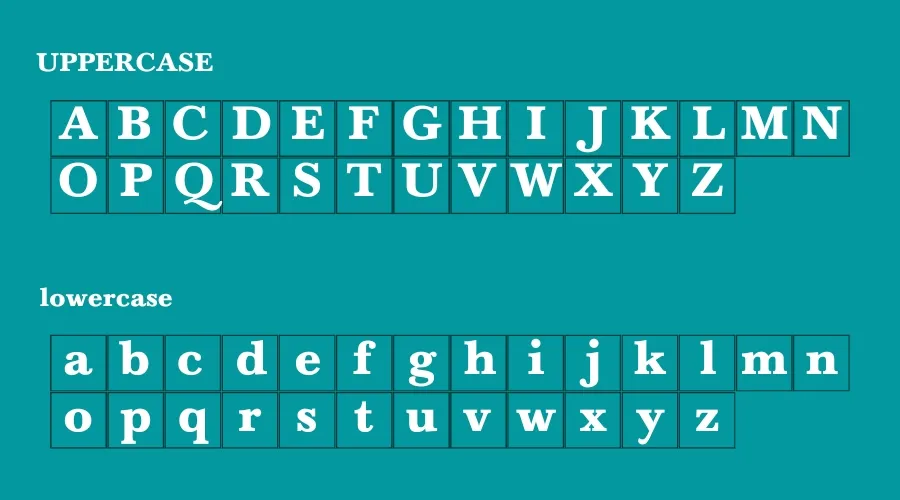
Baskerville Font
About Baskerville Font
The Baskerville Font was created by a well-known typographic developer John Baskerville. It was released in the 1750s through the Mergenthaler Linotype corporation. This font is categorized as a transitional texture and looks like a serif font family.
It gained so much popularity in a very short time after it was released in the font world. It has a good-looking and attractive texture that is based on different weights and characters such as uppercase letters, lowercase letters, numeric, symbols, digits, symbols, and punctuations.
his style is a perfect example of old-serif structures, if you are looking to utilize a serif texture for your text-based projects, then you should try this amazing font.